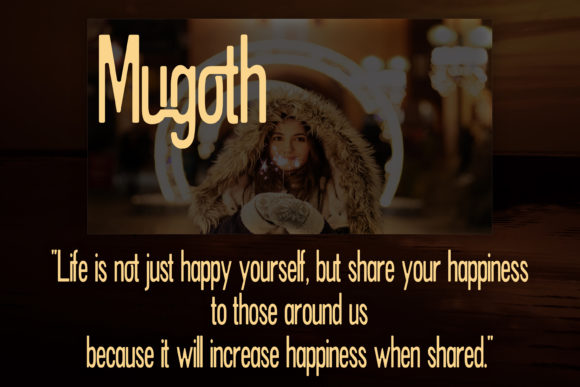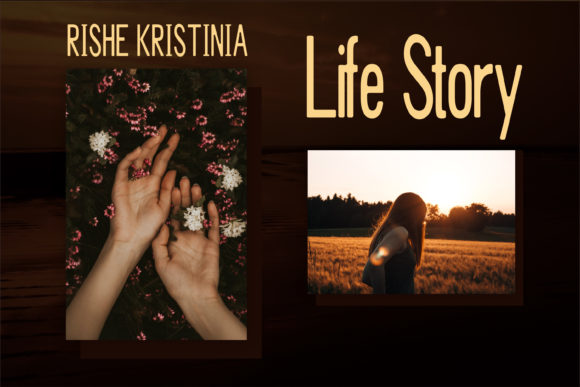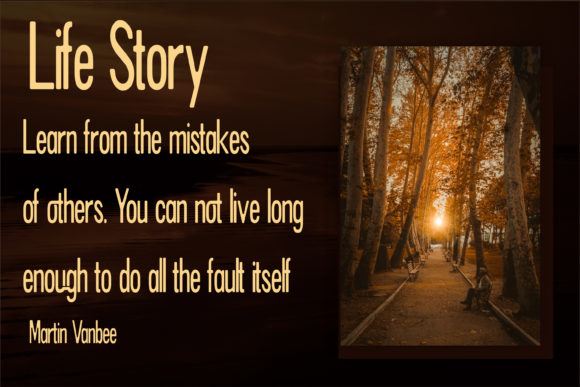
Introduction to Mugoth Font
Mugoth is a vintage styled and delicate sans serif font.
It is suitable for any projects such as logos, branding projects, homeware designs, product packaging, mugs, quotes, posters, shopping bags, t-shirts, book covers, and more .
Mugoth Font offers exceptional quality and versatility, making it a valuable addition to your design toolkit. Whether you’re creating for personal projects or commercial use, Mugoth Font delivers professional results.